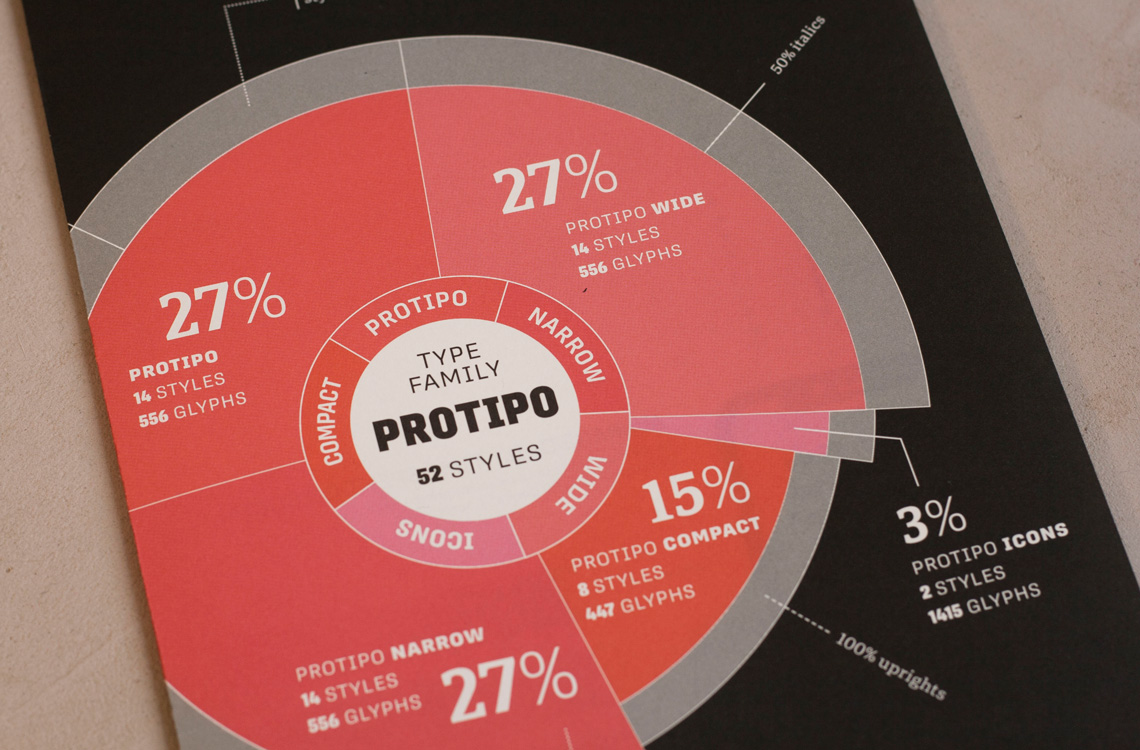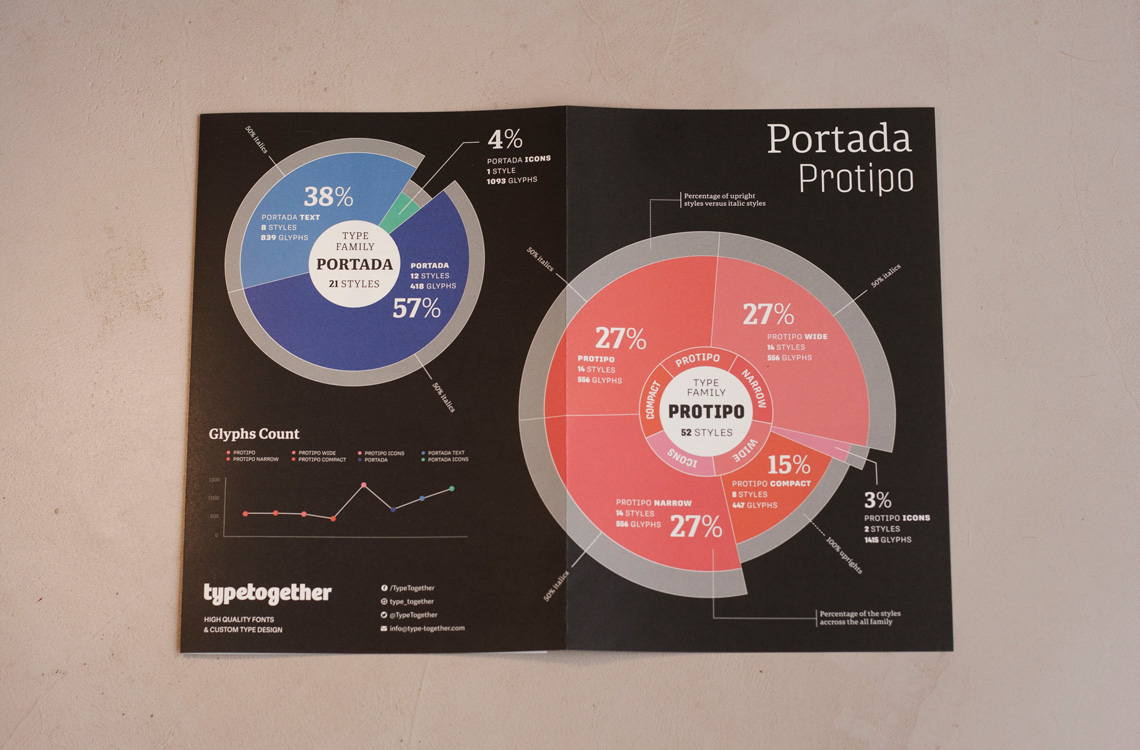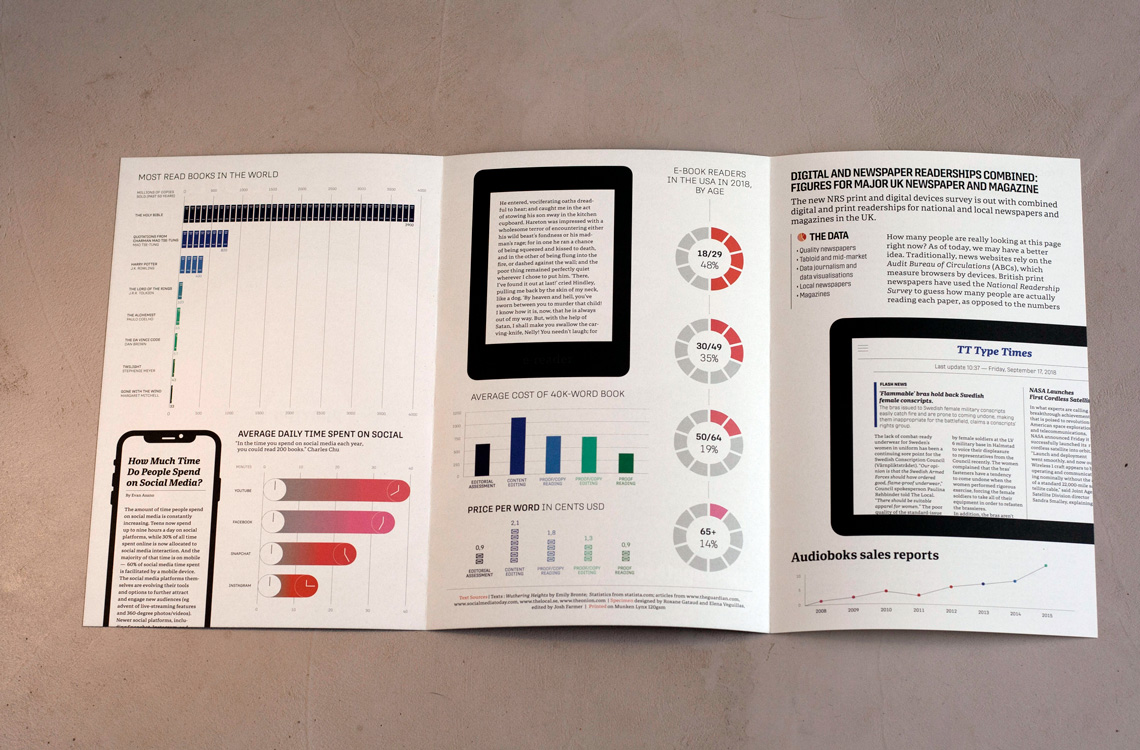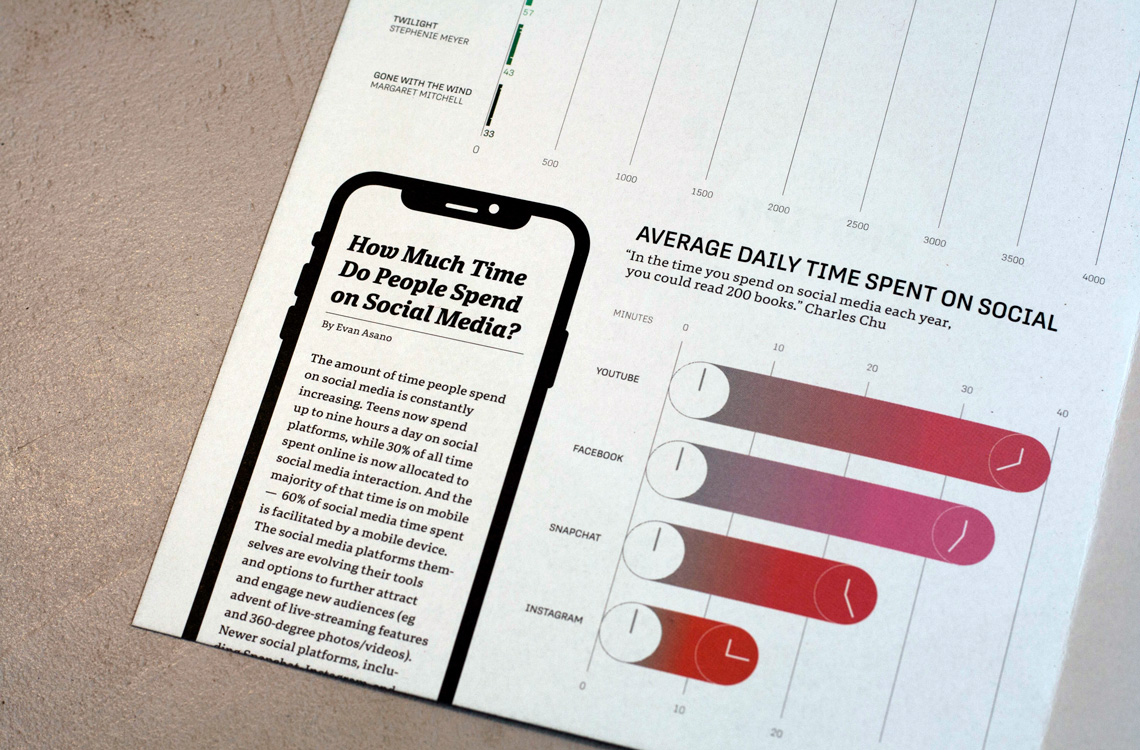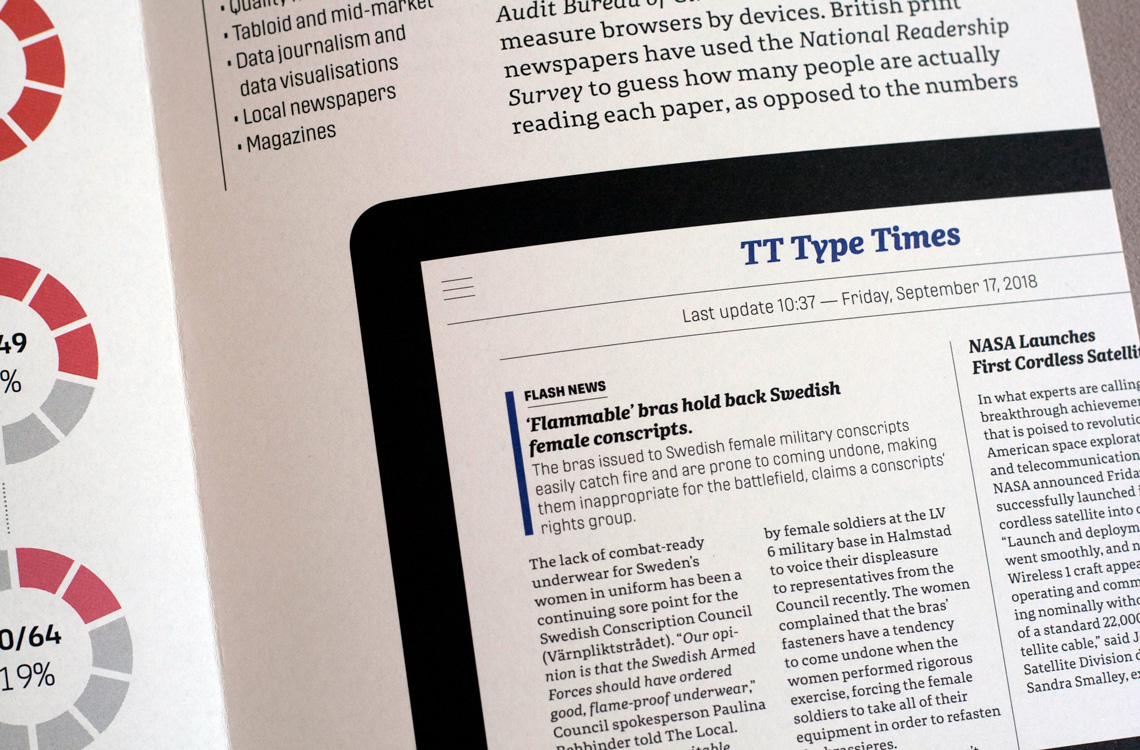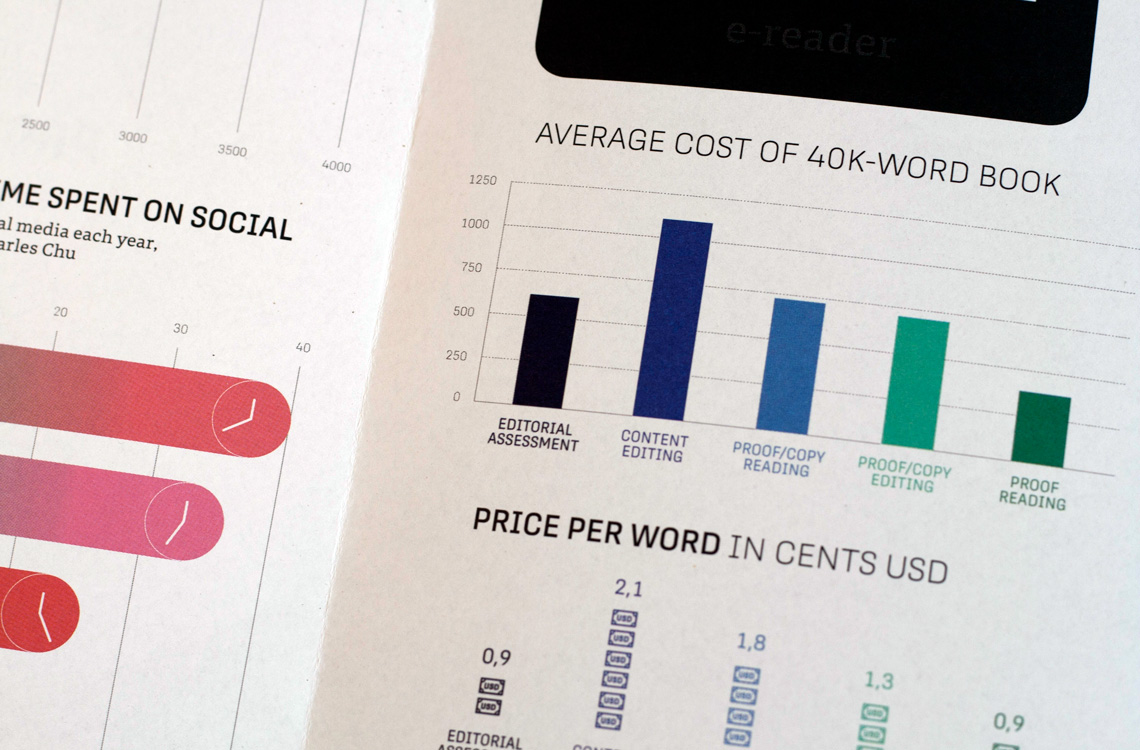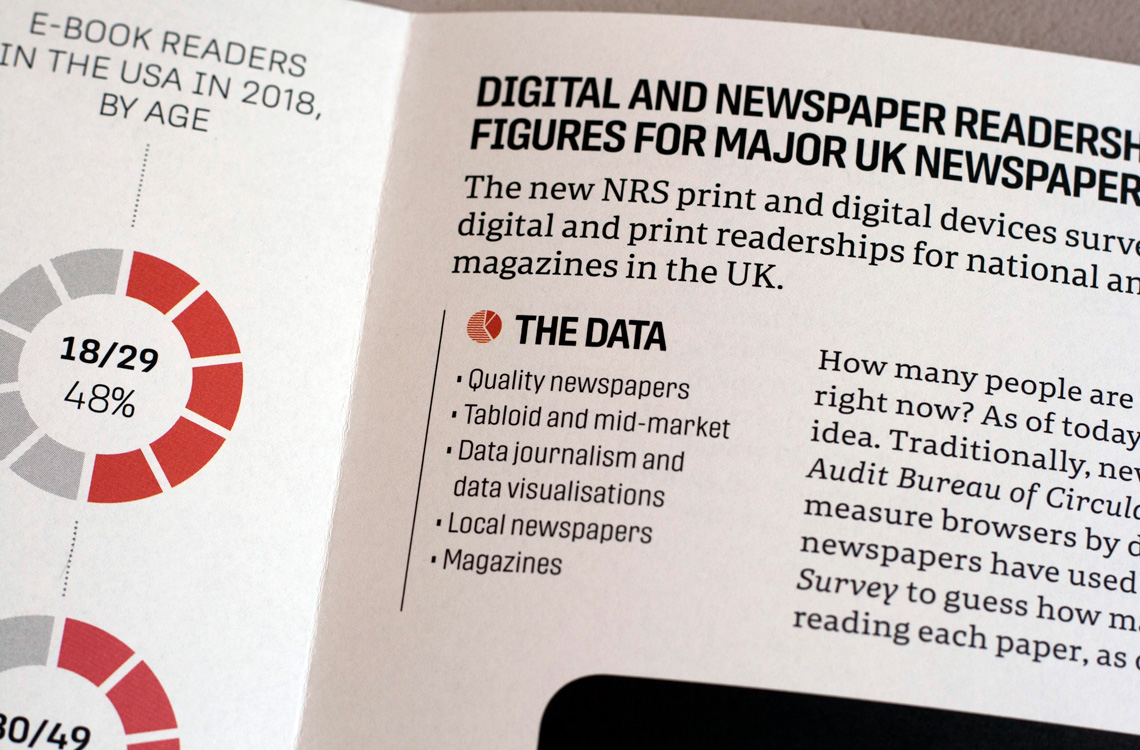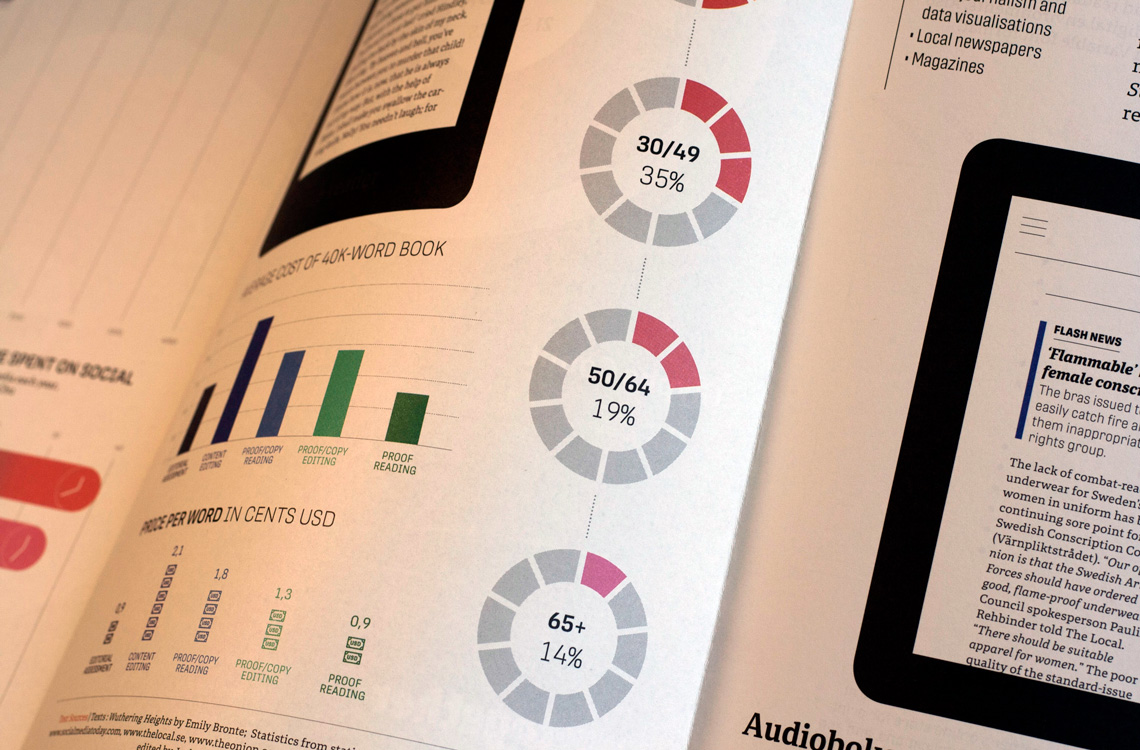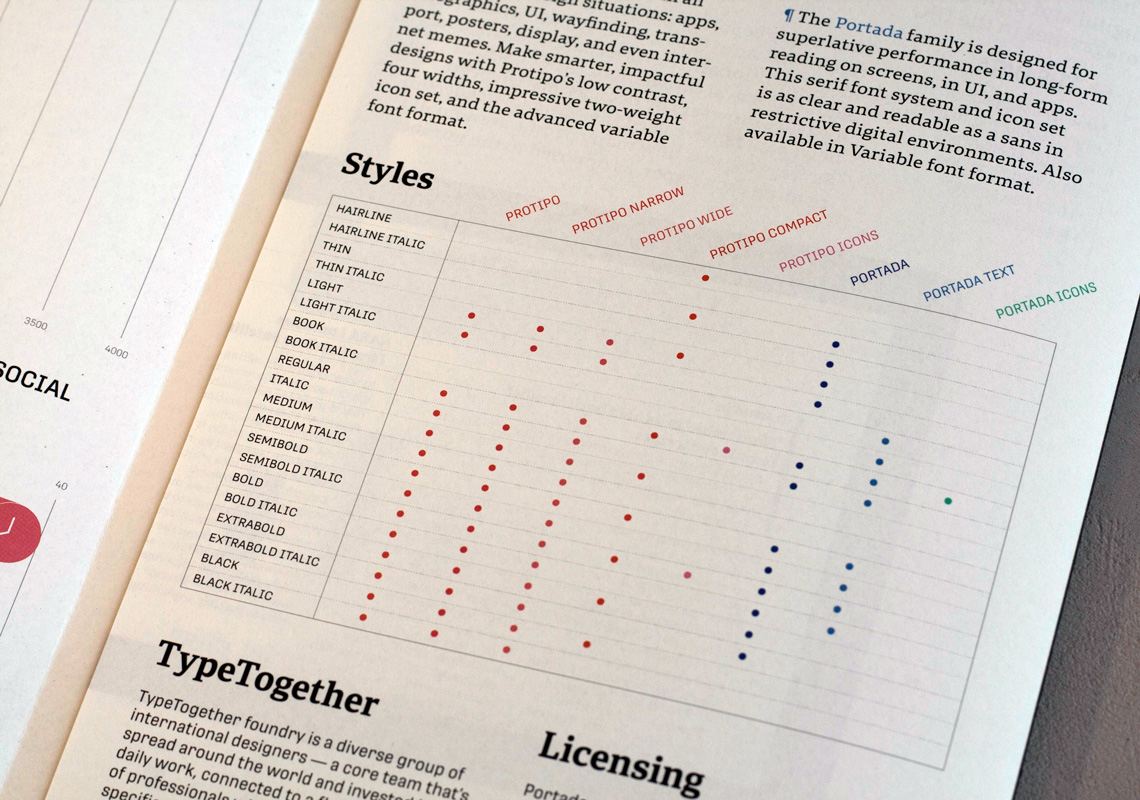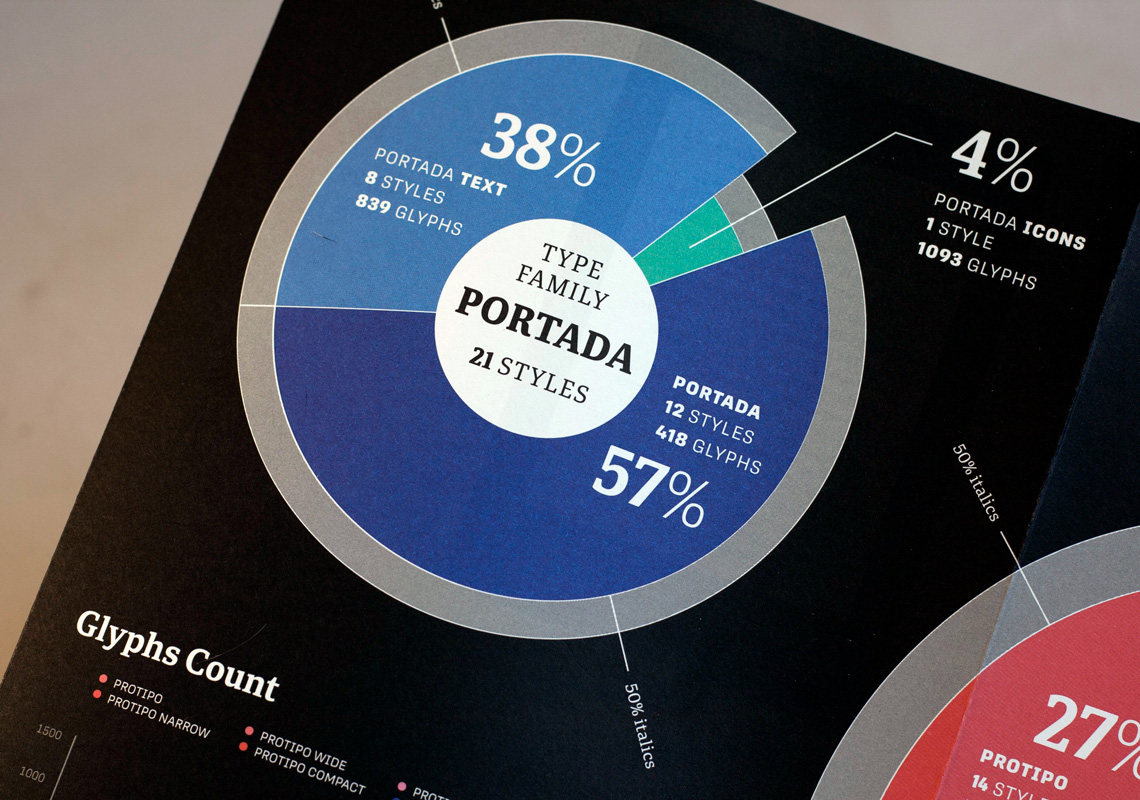
This beautifully designed specimen using real statistics data features the typeface combo Portada and Protipo. Both families have been created to help designers build brands and have been optimised for screens, infographics, signage — the works. Test Protipo’s variable font capabilities at this special minisite that uses real-time data to visualise contents.
The brochure was designed by Roxane Gataud and Elena Veguillas and copyedited by Joshua Farmer. The specimen folds out to 48×24 cm and has been printed by PBtisk on Munken Lynx 120gsm.